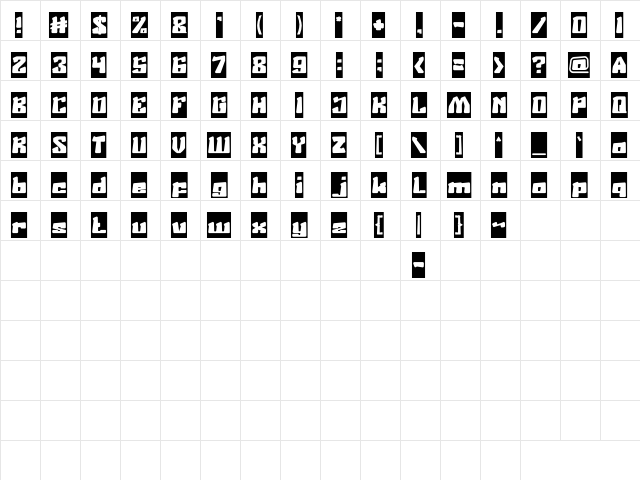
Age Of Science and Technology-I Regular
Design Context for Age Of Science and Technology-I Typeface
Age Of Science and Technology-I channels digital-age aesthetics through its sharp, structured letterforms — ideal for brands that want to signal innovation.
Pro Tip: Use Age Of Science and Technology-I in combination with a neutral sans for body text. Let it define the brand voice in headlines while keeping reading comfortable elsewhere.